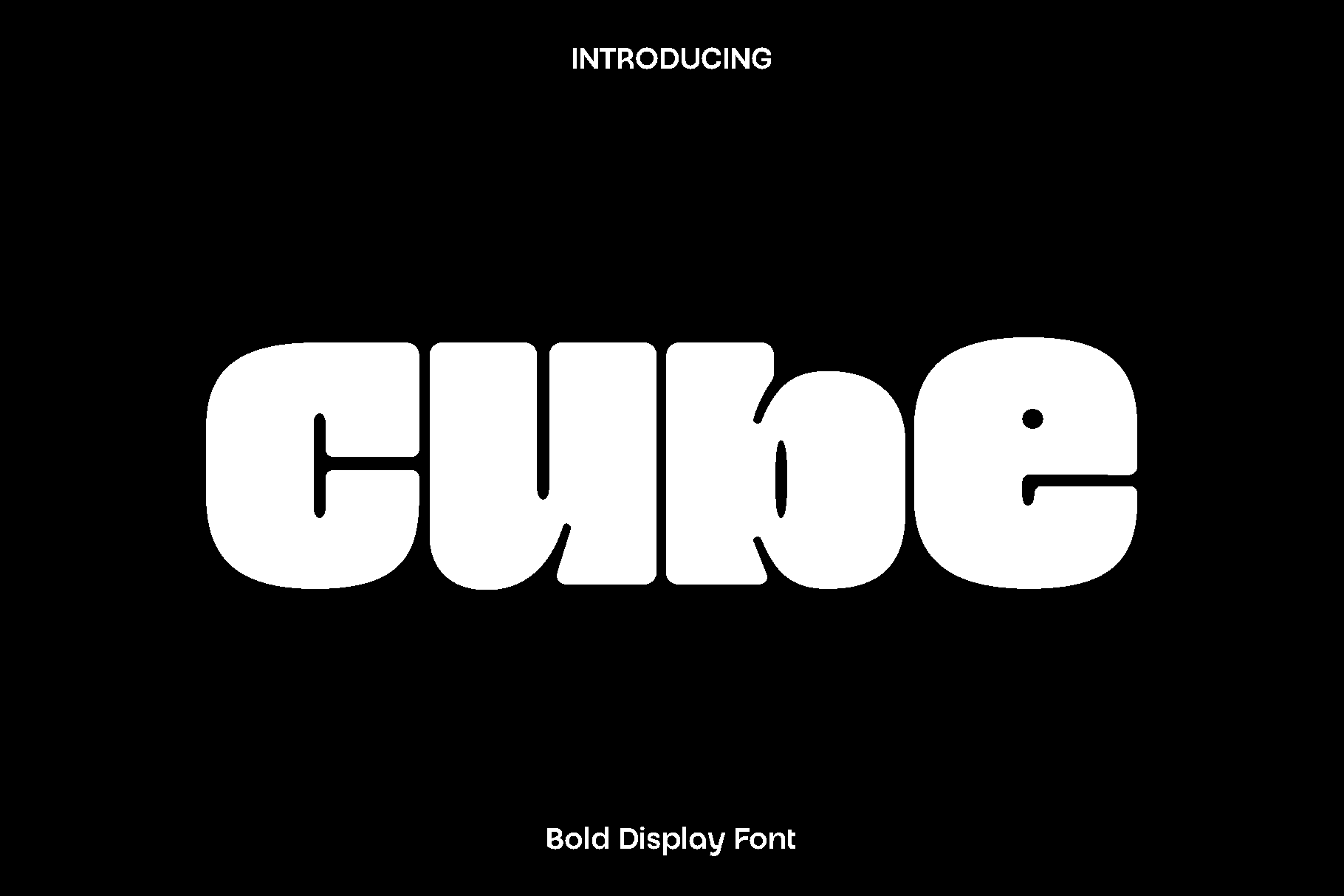
Cobe - Bold Display Font
Cobe is a thick and confident display font created to make every design feel powerful and expressive. Inspired by modern visual trends and strong typography, Cobe brings a bold personality that instantly grabs attention. Its heavy strokes and solid structure give your words a commanding presence, making it perfect for projects that need to stand out with clarity and impact.
This font shines across a wide range of creative uses. From book covers and magazine headlines to logos, branding, photography overlays, quotes, blog headers, posters, and advertisements, Cobe delivers a striking visual tone that feels energetic and modern. Whether used in print or digital design, it adds depth and strength to every composition.
Cobe feels confident, bold, and stylish. It was designed for creators who want their message to be seen and remembered. Its versatility allows it to work beautifully in both professional branding and expressive artistic projects, giving designers a reliable font that performs across many styles and layouts.
With its strong character and easy readability, Cobe is a perfect choice for anyone looking to create designs that feel bold, impactful, and full of personality.
Cobe Bold Display Font Features:
• Thick and bold display characters
• Perfect for headlines, logos, and branding
• Unique punctuation, numbers, and symbols
• Uppercase and lowercase
• OpenType features
• Multilingual support for global use